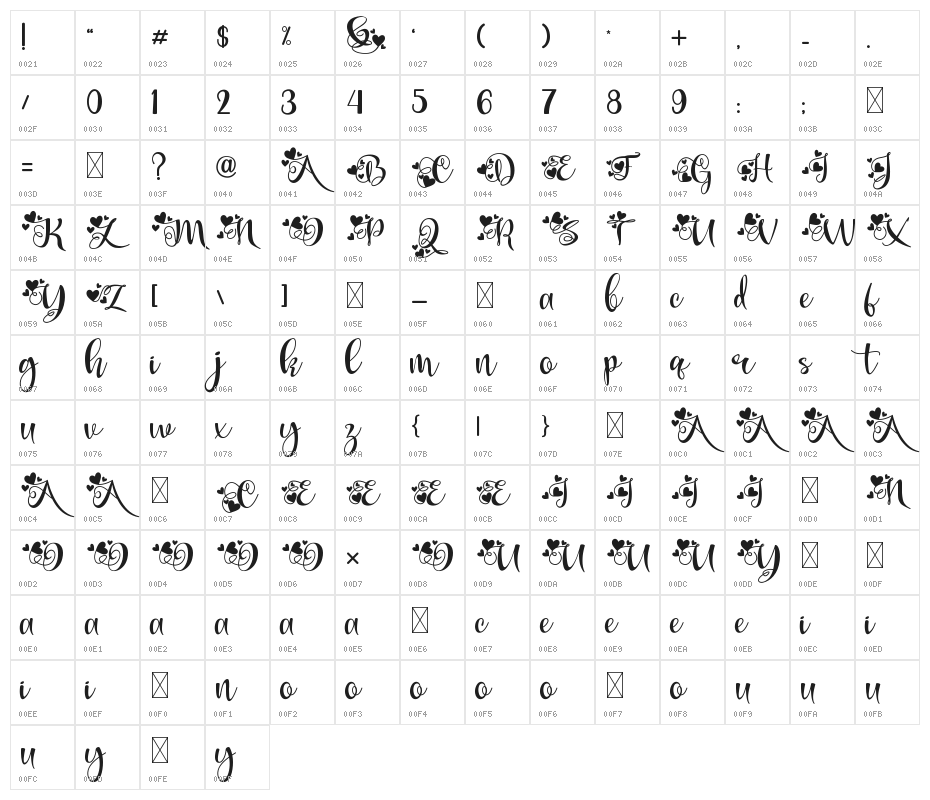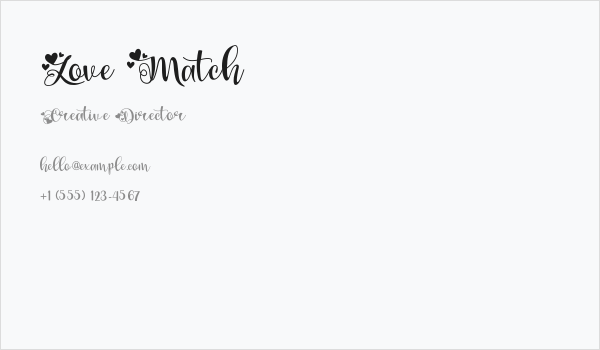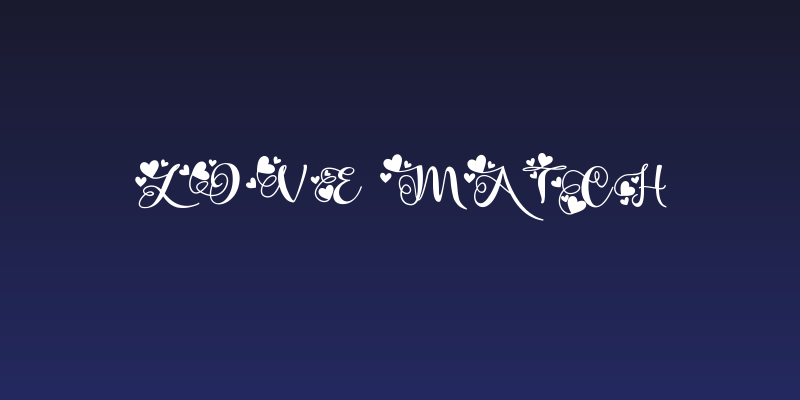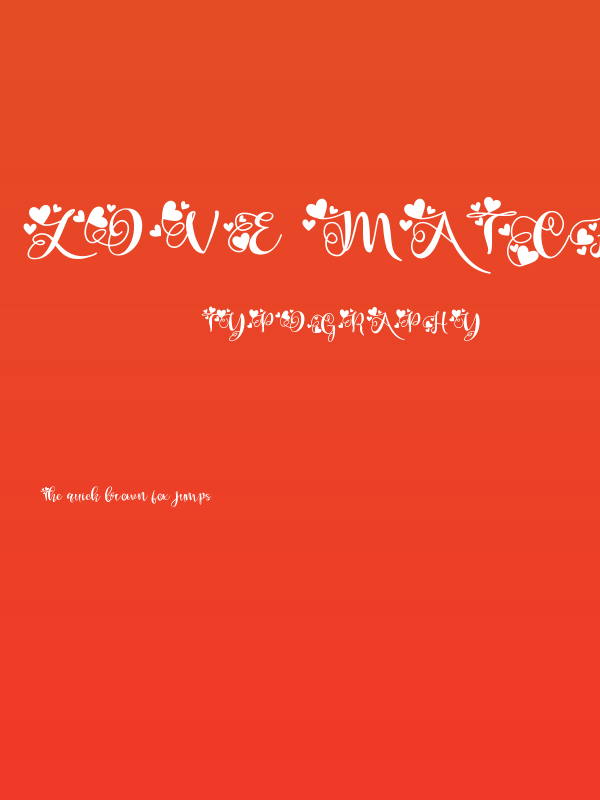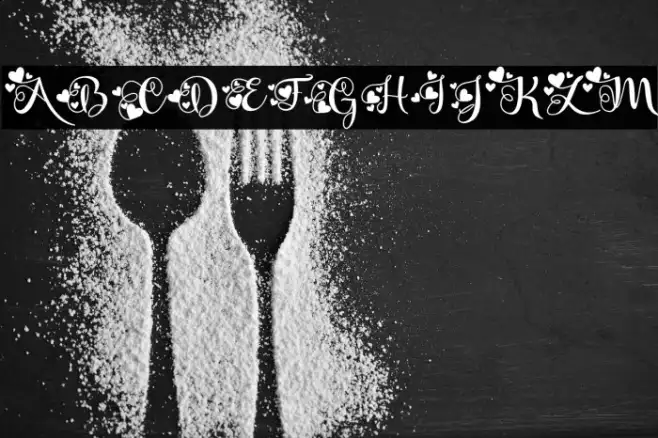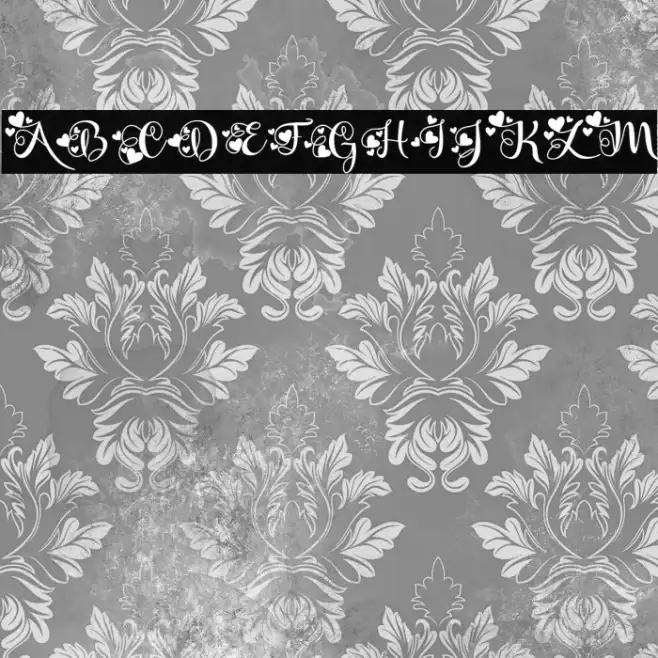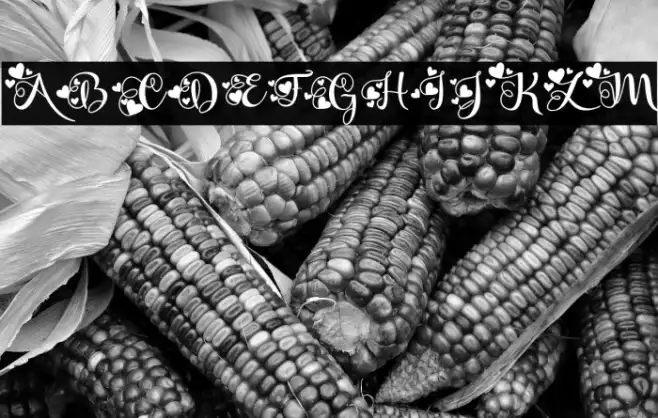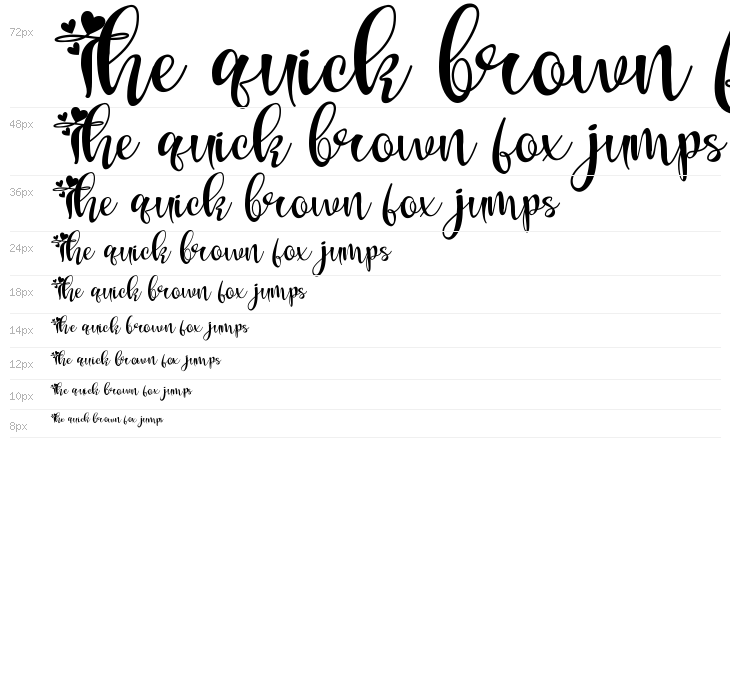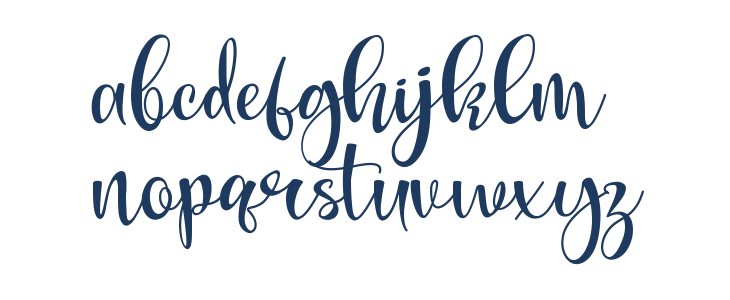
Love Match Font
Love Match Description
This font features a whimsical and decorative style, characterized by its playful integration of heart motifs within the uppercase letters. The uppercase letters are adorned with intricate flourishes and embellishments, giving them a romantic and ornate appearance. The lowercase letters are more fluid and script-like, with elegant curves and a smooth flow that enhances their readability. The numerals are bold and clear, maintaining a consistent style with the rest of the font. Special characters are creatively designed, incorporating the same heart motifs and flourishes, adding to the overall charm and uniqueness of the font. This font is ideal for projects that require a touch of romance and creativity.
| Overall Style | Romantic, Decorative |
| Proposed Projects | Ideal for wedding invitations, romantic greeting cards, love-themed branding, and decorative posters. |